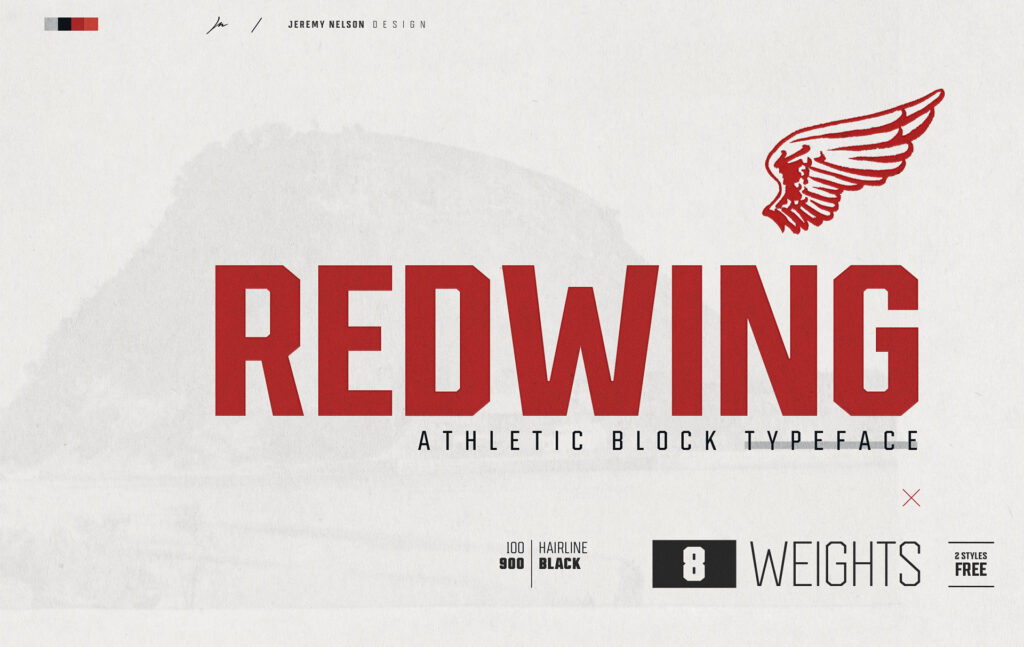
Redwing | Athletic Display Typeface Cut from the foundations of athletic block fonts and industrial typography, Redwing is inspired by the pioneering heritage and blue-collar roots of its namesake: Redwing, Minnesota. With bold forms, a machined aesthetic, and heavy-duty construction Redwing brings the backbone to shoulder any typographic load, clock-in, and go to work. – Full Font Family available for license on Creative Market – 2 Free Weights available for personal and commercial.